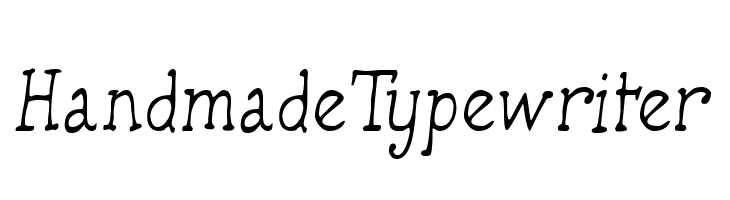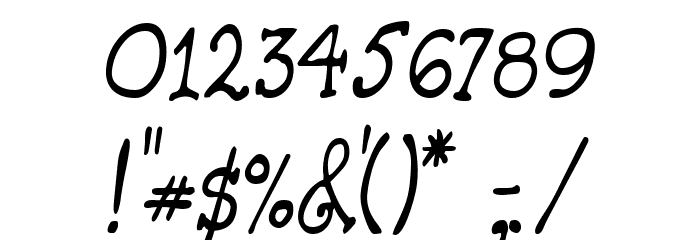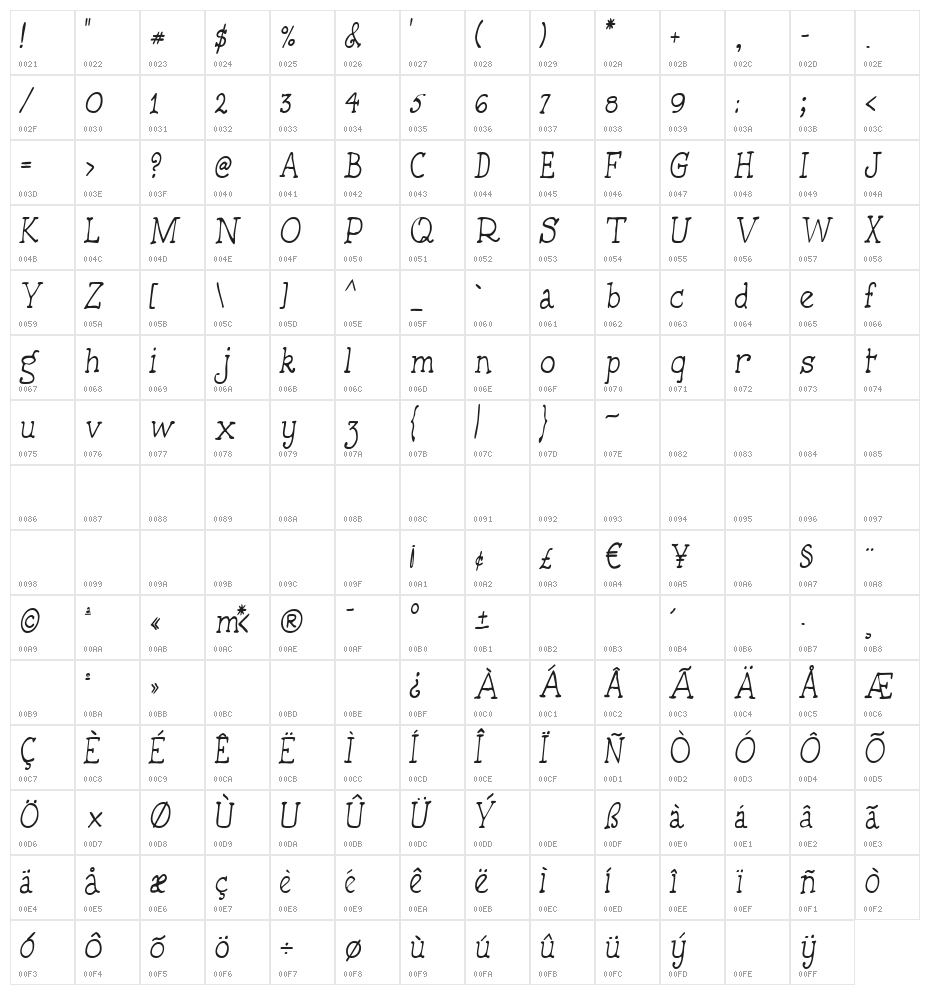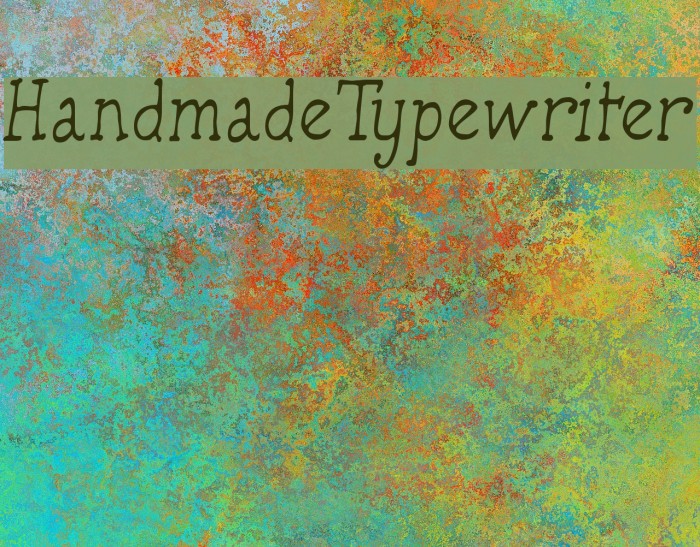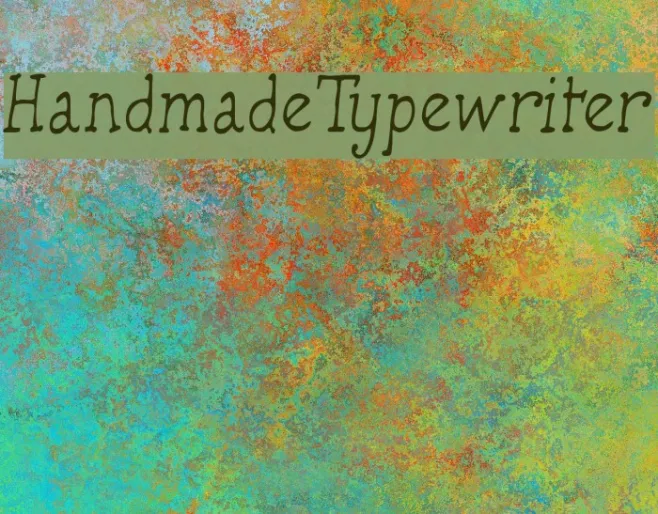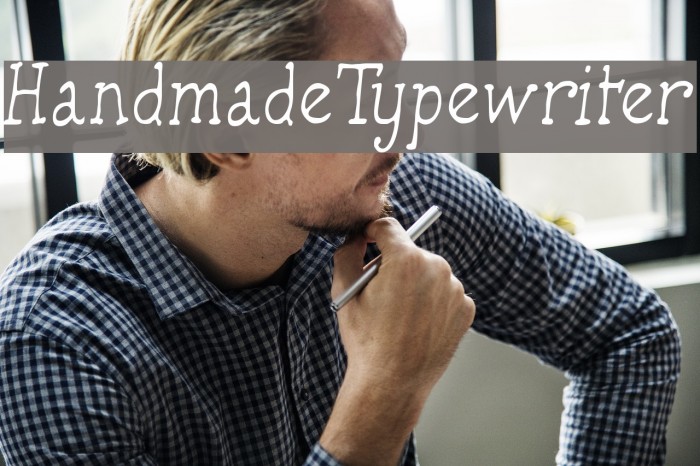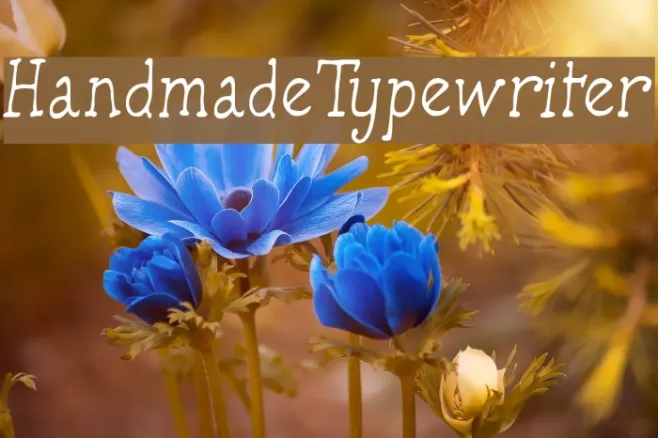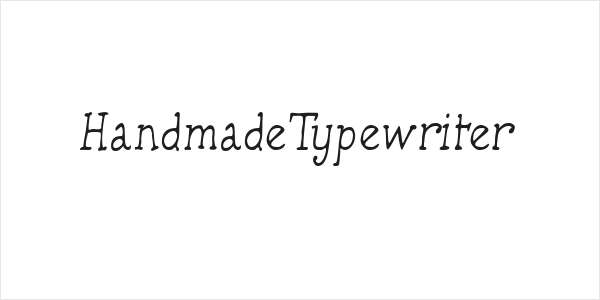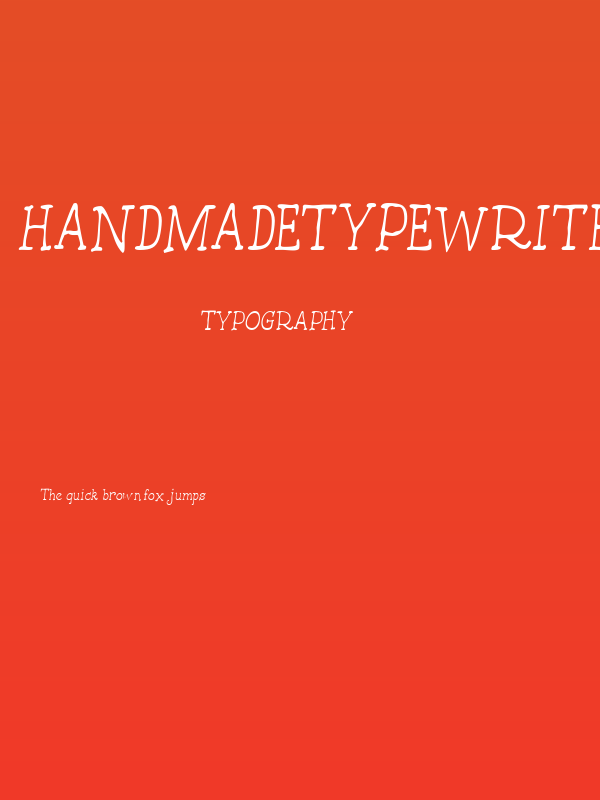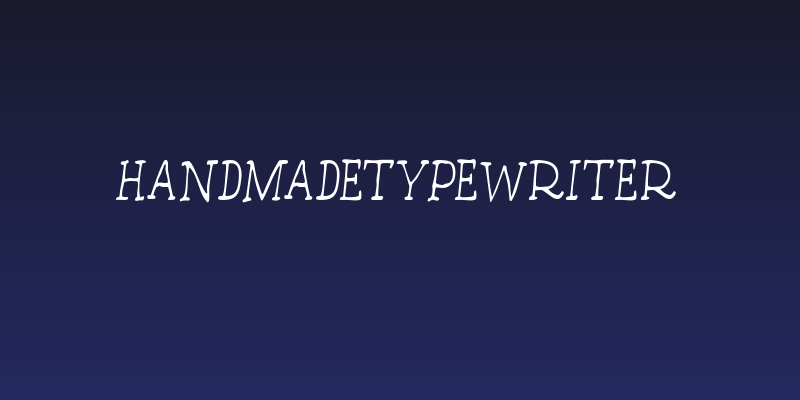
HandmadeTypewriter Font
HandmadeTypewriter Description
This font exudes a charming, handcrafted feel reminiscent of vintage typewriters. Each character is uniquely imperfect, with slight variations that give it a personal touch. The letters are slightly slanted, adding to the handwritten aesthetic, while maintaining a clear and readable structure. The strokes are consistent in width, providing a balanced appearance. The numerals and special characters complement the alphabet with similar stylistic traits, ensuring a cohesive look across all text. This font is perfect for projects that require a nostalgic or personal touch, such as invitations, greeting cards, or creative writing projects.
Overall StyleVintage
Use CaseHeadlines, Body text, Logos
Proposed ProjectsIdeal for invitations, greeting cards, creative writing projects, and any design needing a personal, nostalgic touch.